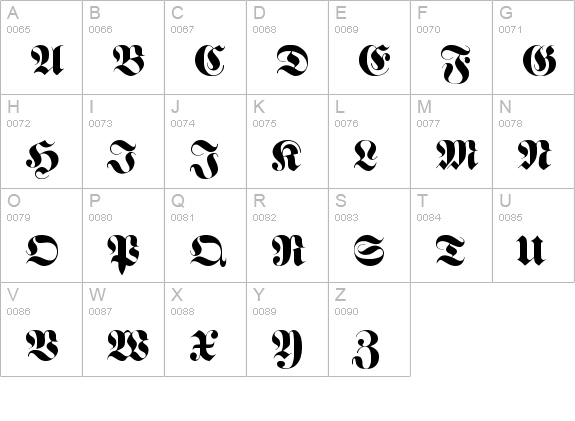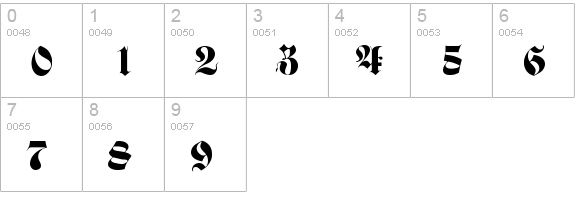
Manorly Regular Font Details
Manorly Regular is the standard, neutral variant in the Manorly typeface family \xE2\x80\x94 well suited to general body text, paragraphs, and standard typographic work.
Manorly Regular font is a timeless and elegant typeface that exudes sophistication and refinement. With its clean lines and delicate curves, this font is perfect for adding a touch of class to any design project. Whether you're creating invitations, logos, or branding materials, Manorly Regular will effortlessly elevate your work to new heights. Featuring a balanced letterform and a harmonious composition, Manorly Regular strikes the perfect balance between modernity and tradition. Its legibility and versatility make it suitable for a wide range of applications, from website headers to book covers. What makes Manorly Regular even more appealing is that it is freely available to download at FontsMarket.com. This means that you can easily access this exceptional font and use it in your projects without any restrictions. Whether you're a professional designer or a hobbyist, Manorly Regular offers you the opportunity to enhance your creations and make them truly stand out. So, why settle for ordinary fonts when you can have the extraordinary? Download Manorly Regular today and let your designs exude an air of elegance and sophistication that will capture attention and leave a lasting impression.